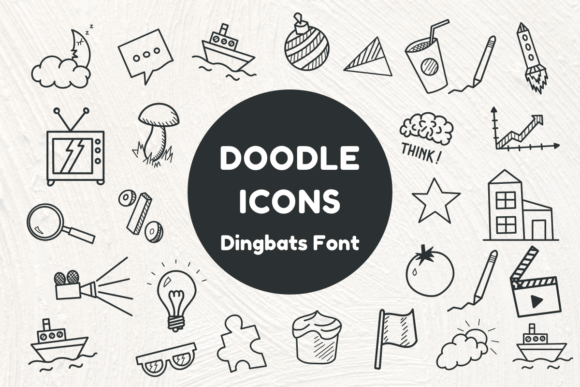
Unlock the Power of Hand-Drawn Icons with Doodle Icons Font
You know that moment when you’re working on a project, and you need that perfect icon to bring your design to life? The struggle is real – scrolling through countless font libraries, hoping to find that one unique symbol that completes your look. That’s where the Doodle Icons Font comes in, offering a playful solution to your design woes.
This charming dingbats font is packed with hand-drawn everyday objects that add a touch of personality to any layout. From light bulbs to rockets, and snacks to charts, the Doodle Icons Font has got you covered. Ideal for infographics, educational materials, scrapbooking, and creative presentations, this font is a must-have for designers looking to elevate their designs with a dash of whimsy.
Doodle Icons Font Key Features
• Icon Count: Includes over 1,000 unique, hand-drawn icons in various categories, making it a versatile solution for designers.
• Resolution: Designed at 1024 x 1024 pixels, allowing for crisp and clear rendering at various sizes.
• Scalability: Optimized for use at small sizes, ensuring that icons remain legible and recognizable even in tight spaces.
• Color Options: Includes a range of line weights and fill options, enabling designers to customize the look and feel of the icons to suit their project.
Doodle Icons Font Review
Overall, I’d say the Doodle Icons Font is a fun and quirky addition to any design project. The set of hand-drawn icons is sure to bring a unique touch to your designs ✨.
• Uniqueness: The Doodle Icons Font offers a distinctive, hand-drawn style that can help your designs stand out from the crowd.
• Flexibility: The font includes a wide range of icons, making it easy to find the perfect fit for your project.
• Customization: The font is highly customizable, allowing you to adjust the size, color, and style to suit your design needs.
• Limited scalability: While the font is great for small-scale designs, it may not be the best choice for large-scale projects or high-resolution printing.
• Style consistency: The hand-drawn style can sometimes result in inconsistent icon quality, which may affect the overall look of your design.
• Size limitations: Some icons may appear pixelated or distorted when scaled up, which can be a problem if you need to use them in large sizes.
Overall, I’d recommend the Doodle Icons Font for small-scale designs, personal projects, or projects where a unique, hand-drawn look is a must. Just be aware of the limitations and potential inconsistencies, and you’ll be fine ✨.
Tips for Getting the Most Out of Doodle Icons Font
Use the Doodle Icons Font to add a playful touch to your designs. Experiment with different icon combinations and colors to create a unique visual style. You can also use the icon font to create custom graphics and illustrations.
Doodle Icons Font is perfect for:
• Branding and marketing materials
• Website design and development
• Print materials and flyers
• Presentations and slideshows